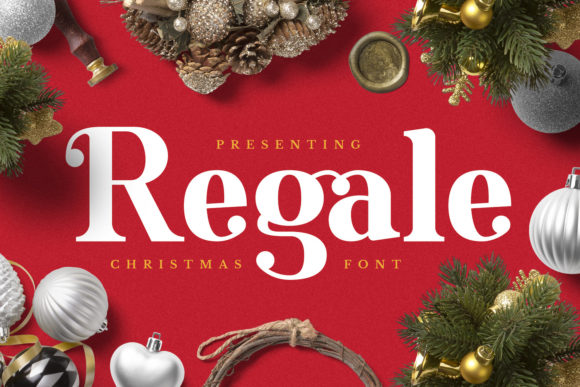
Behold, Regale Font, a captivating display font, a masterpiece crafted by Runsell Graphic, ready to elevate your designs to new heights. Regale is the embodiment of celebration, adorning your creations with an aura of joy and festivity.
With Regale, transform t-shirts into vibrant canvases, where bold statements and playful designs dance together in perfect harmony. Infuse sportswear with a dynamic energy, letting the font's athletic spirit propel your designs to the finish line. Create logos that command attention, leaving an indelible mark on the minds of your audience.
Harness the power of Regale to craft advertisements that burst with life and energy, captivating viewers and leaving them eagerly anticipating your brand's next move. Elevate your clothing line with Regale, weaving tales of fashion and flair into every thread.
Whether you're a seasoned designer or just starting your creative journey, Regale is your trusty companion, guiding you through the world of design with its effortless versatility. Experience the thrill of creation as Regale seamlessly adapts to your vision, bringing your ideas to life with stunning clarity and precision.
Unleash your imagination and embrace the boundless possibilities that await you with Regale Font. As you embark on this creative odyssey, know that you hold the key to unlocking designs that resonate with your audience, designs that ignite hearts and inspire minds.
Welcome to the realm of Regale Font, where creativity knows no bounds, and every design tells a story. Let the celebration begin!